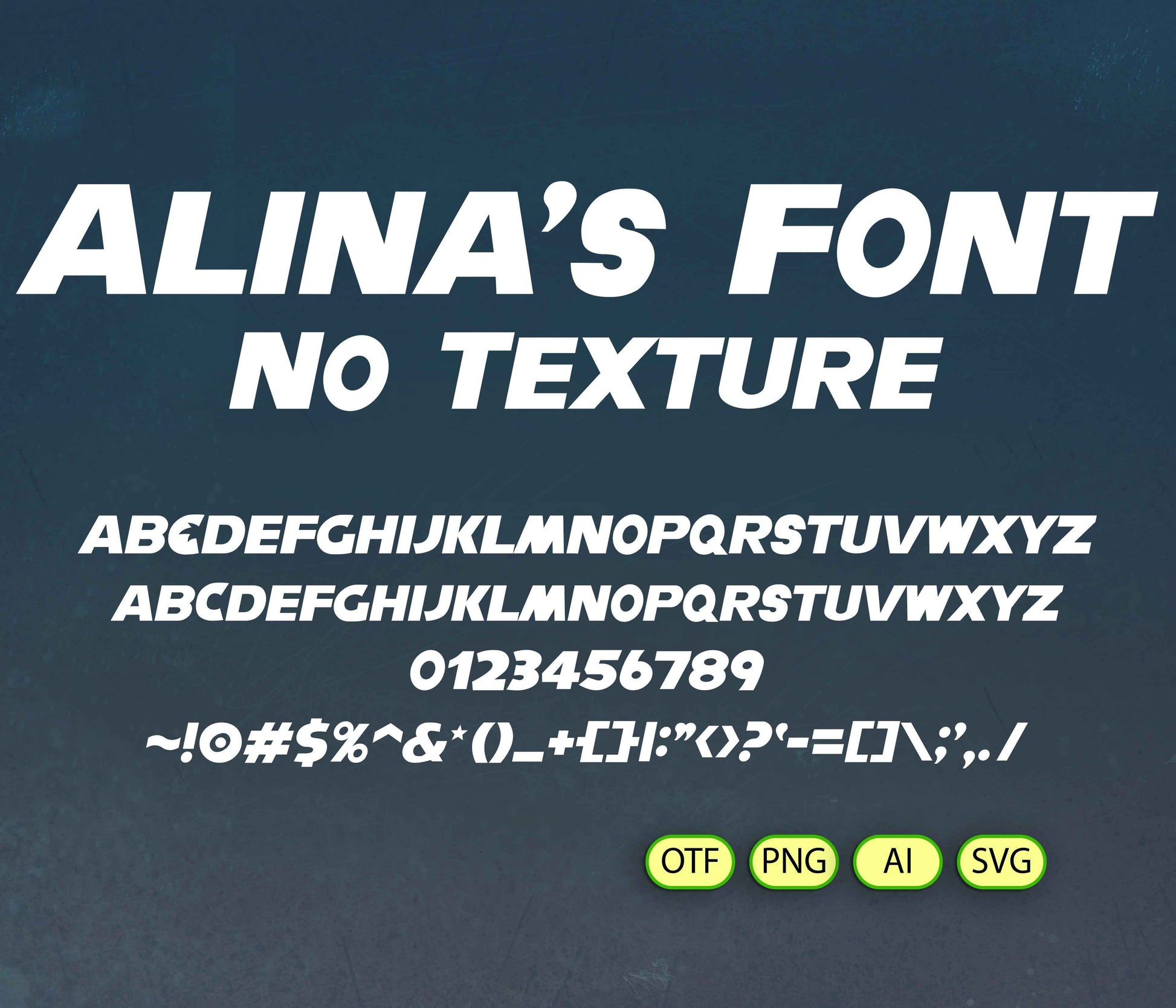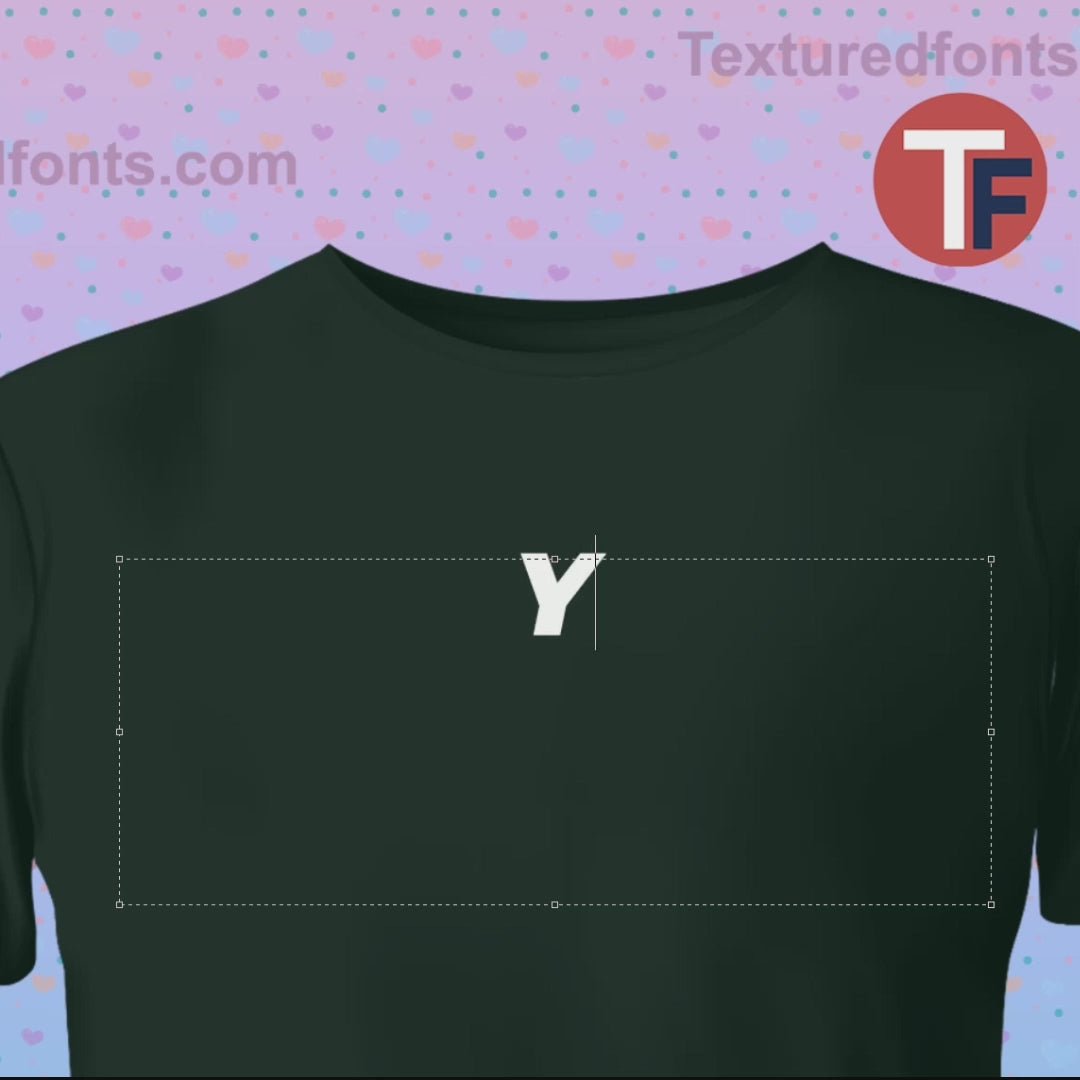
Rapid Racer Font
Speed into Creativity with the Rapid Racer Font
Capture the high-speed excitement of a legendary video game franchise with our Rapid Racer font. This font is crafted to embody the energy and thrill of a beloved speedy character's adventures, spotlighting the playful and adventurous vibe of classic games. It's perfect for fans and creators looking to inject some of the classic video game's charm into their projects, from gaming content to vibrant event promotions.
What Is the Rapid Racer Font?
With its sleek, dynamic lines and rounded forms, our Rapid Racer font reflects the fast-paced action and vibrant graphics of the game. The font includes a complete set of characters—uppercase, lowercase, numbers, and special symbols—enabling a wide range of applications:
- Video Game Content: Enhance game reviews, walkthroughs, and promotional materials.
- Event Marketing: Create eye-catching materials for game launches or fan conventions.
- Merchandise: Design unique apparel, posters, and collectibles.
- Digital Design: Perfect for adding flair to websites, social media posts, or online ads.
Our Rapid Racer font is more than just a typeface; it’s a way to bring the energy and excitement of a speedy hero's world into your creative projects. Whether you're developing promotional materials, custom merchandise, or engaging digital content, this font allows you to channel the hero's spirit and speed into every word and design. Get ready to race through your creative tasks with the Rapid Racer font!